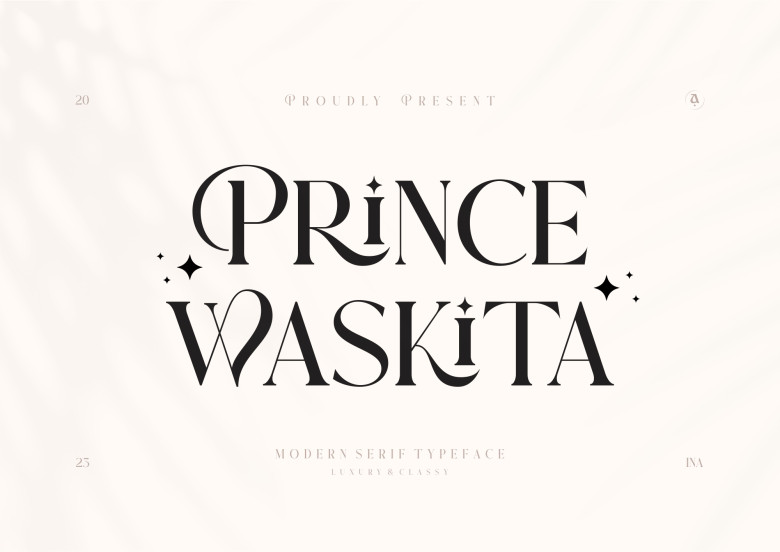
Prince Waskita Font
Prince Waskita is an elegant display serif font. With uppercase and lowercase characters available in uppercase or lowercase form, multilingual support, alternates, and the most commonly used characters included, this font can be used for logos, social posts, product packaging designs and much more.
Prince Waskita Serif Font